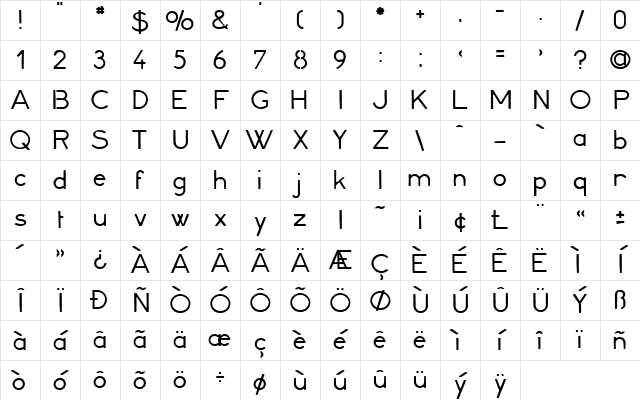
Minerva16 Regular
Foundry: J O E B O B graphics
Designer: J O E B O B graphics
Design Context for Minerva16
Minerva16 is a composed and adaptable typeface that performs quietly and consistently across a wide range of design contexts.
Pro Tip: Use Minerva16 in both headline and body roles to test its range before committing to a single application.